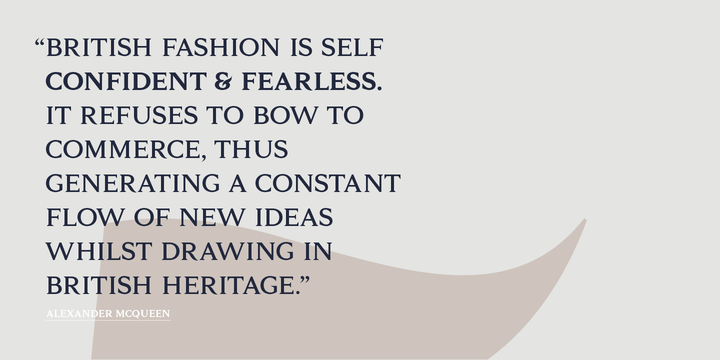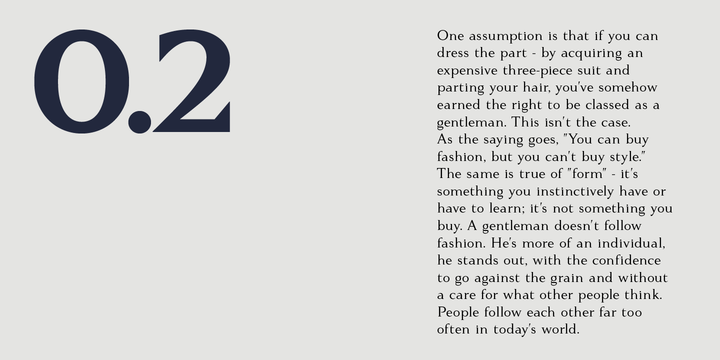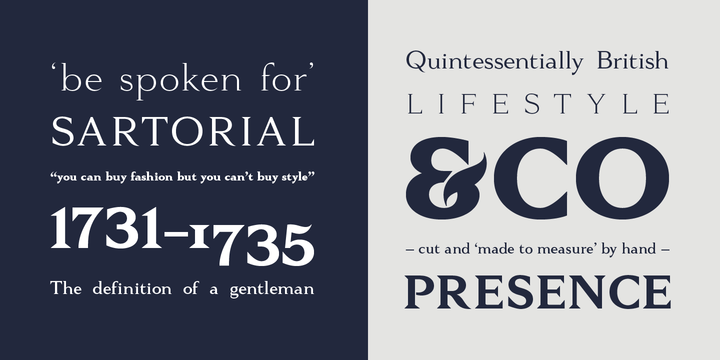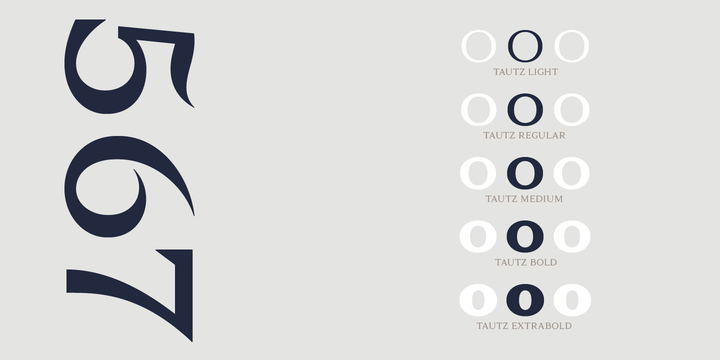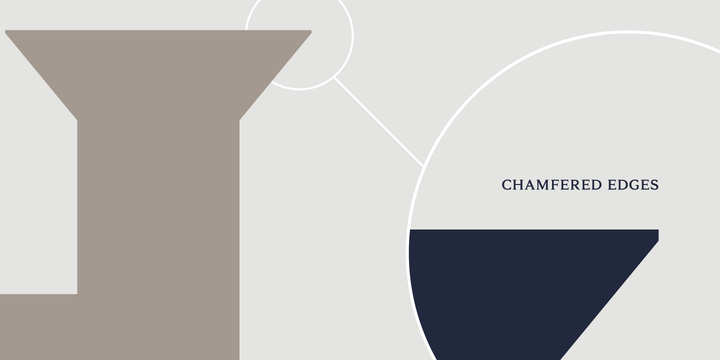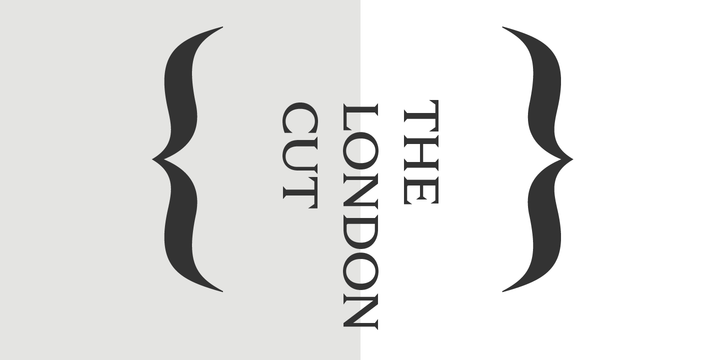
A concept driven serif font family of 5 weights. It is a contemporary take on the humanist serif with a touch of rationality and frivolity. Tautz began its life as a research into collective British Style & Heritage, as the pursuit of capturing
Tautz Light
Tautz
Tautz Medium
Tautz Bold
Tautz Extra Bold